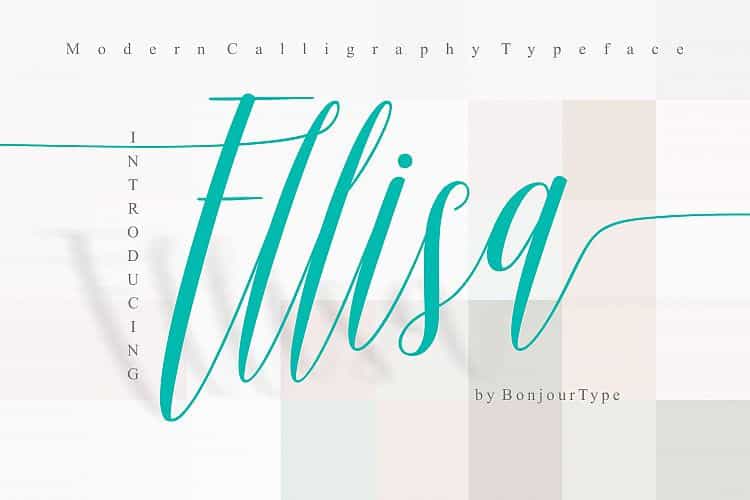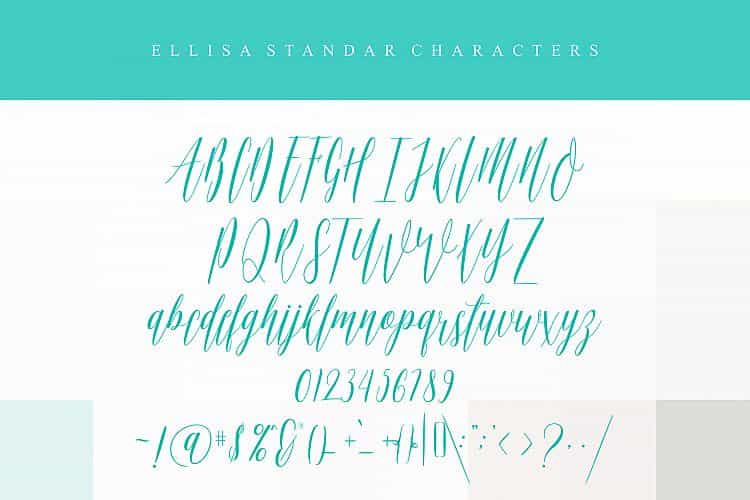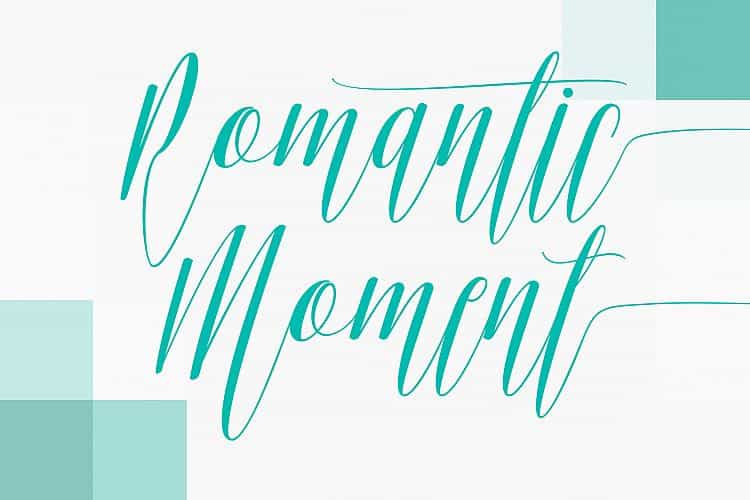
Introducing Ellisa Font! Ellisa Script Font is a unique, stylish and modern calligraphy font that combines copperplate to contemporary typeface with a dancing baseline. It has got the modern and elegant touch.